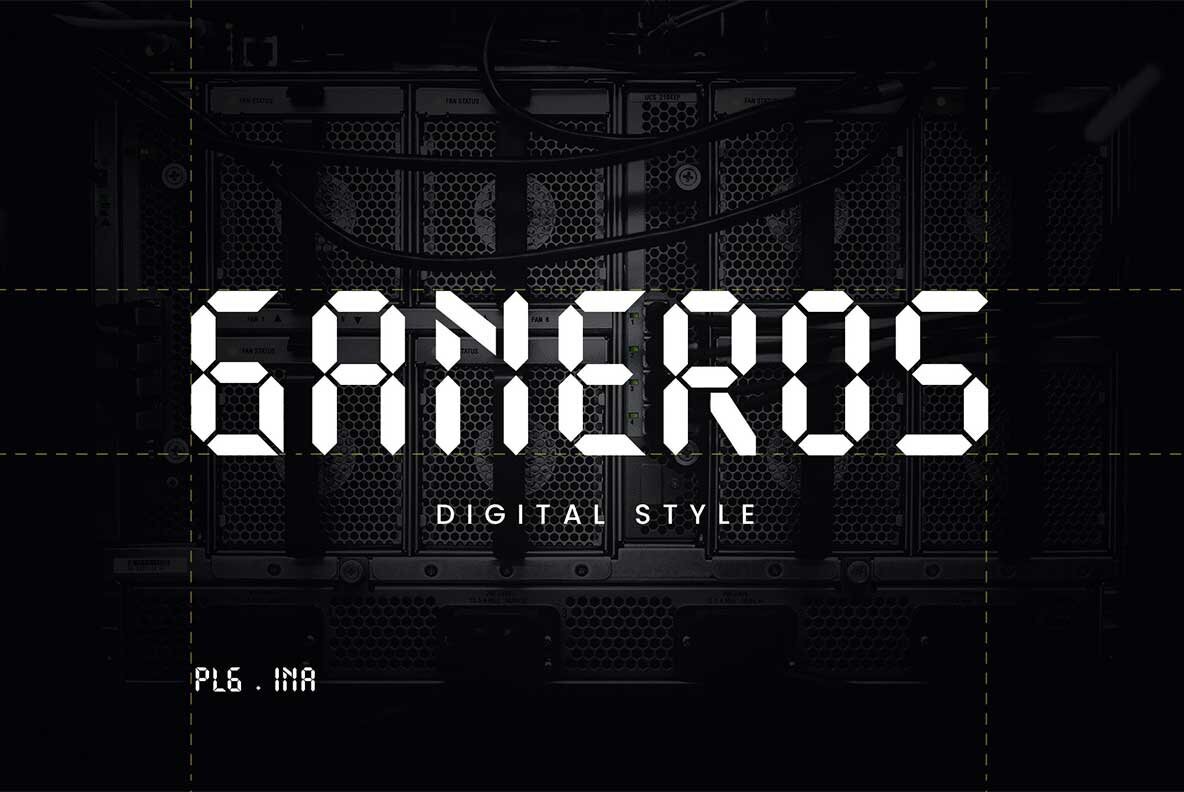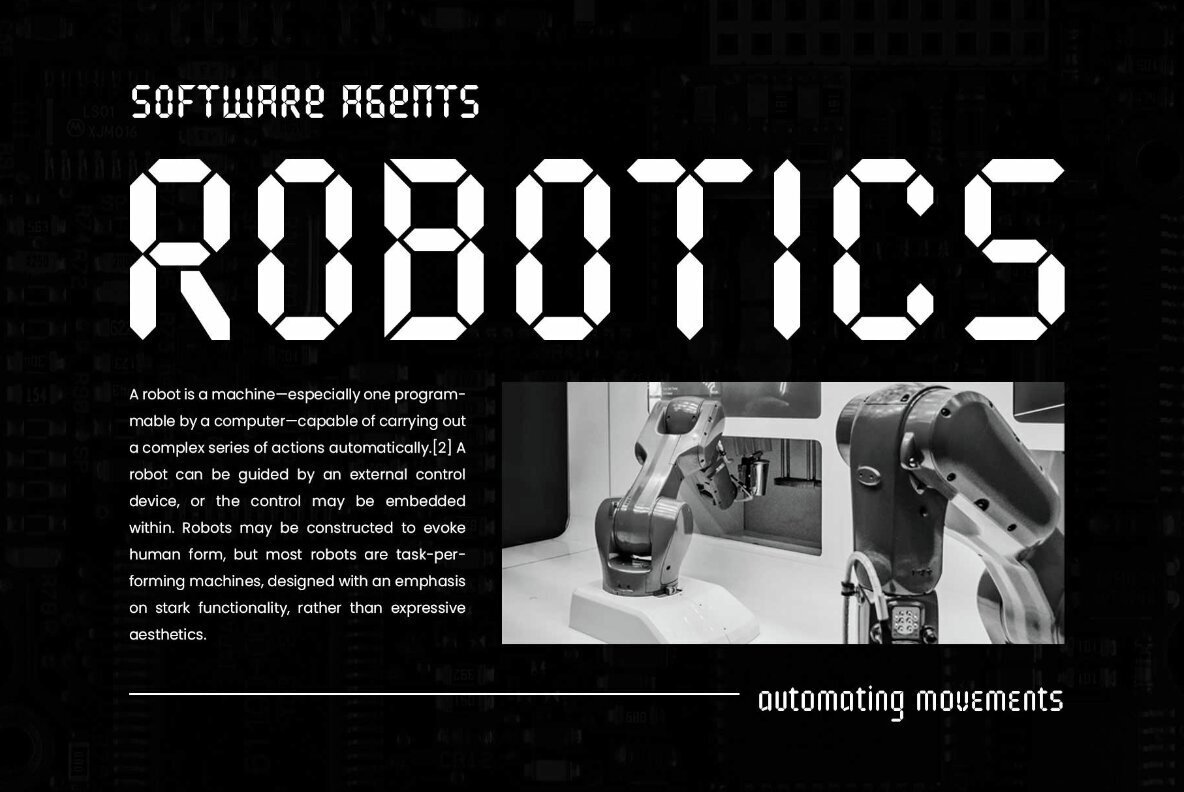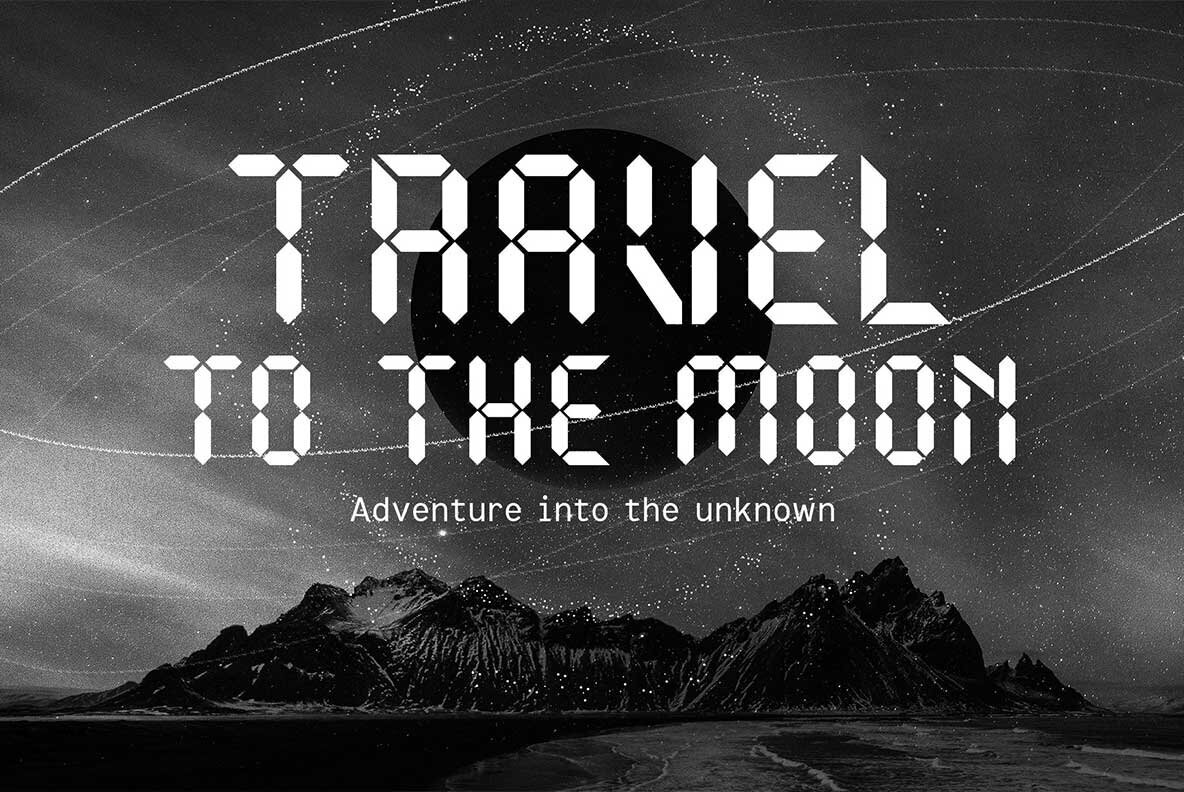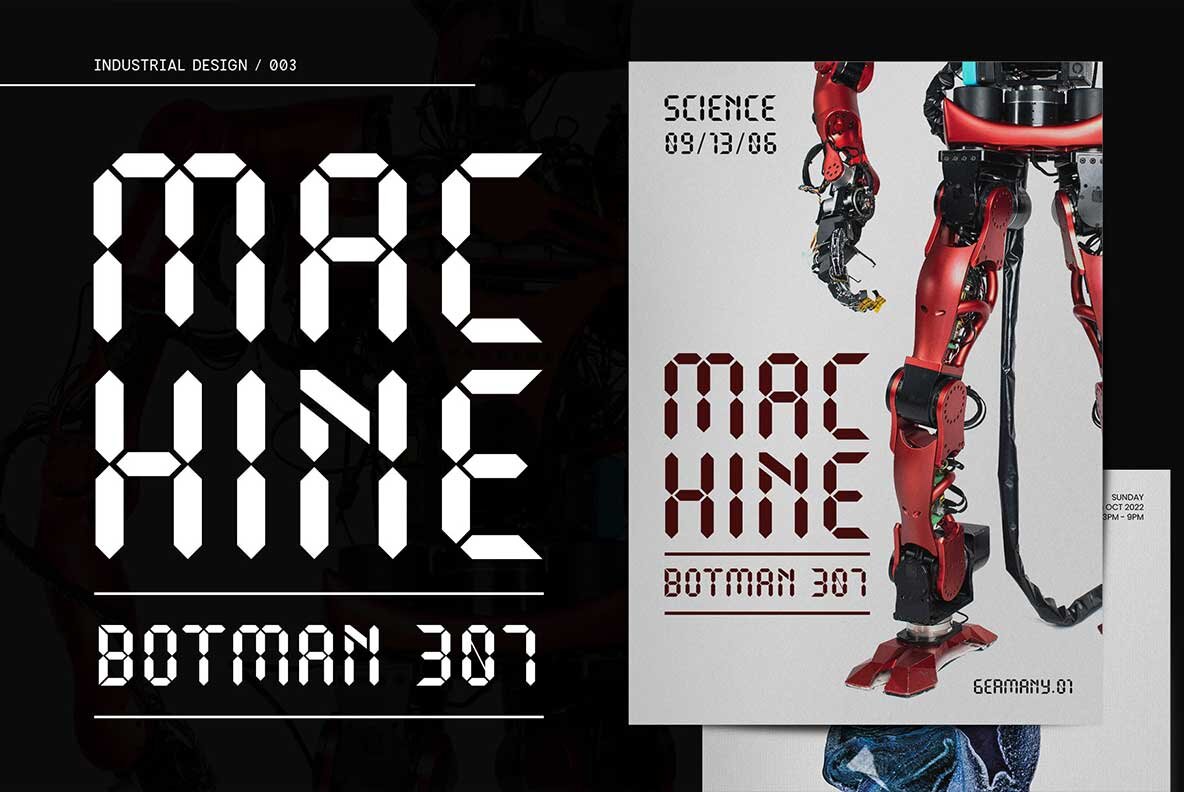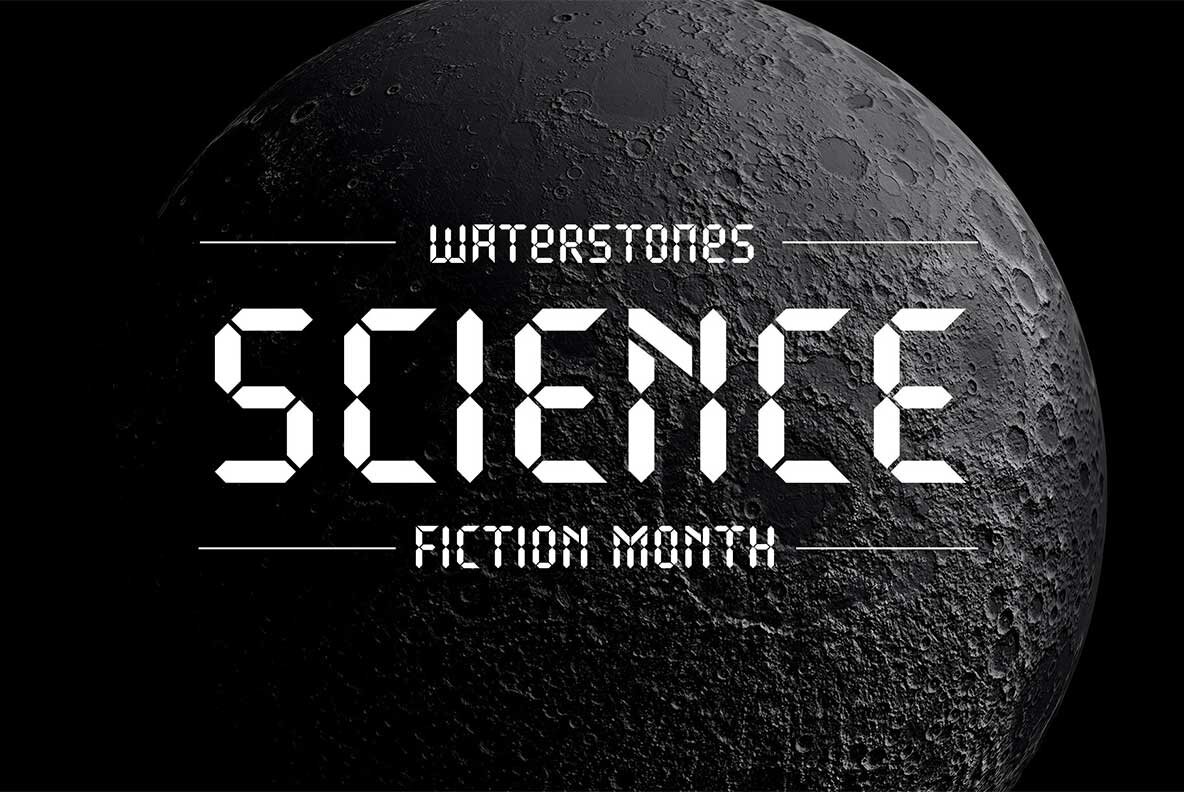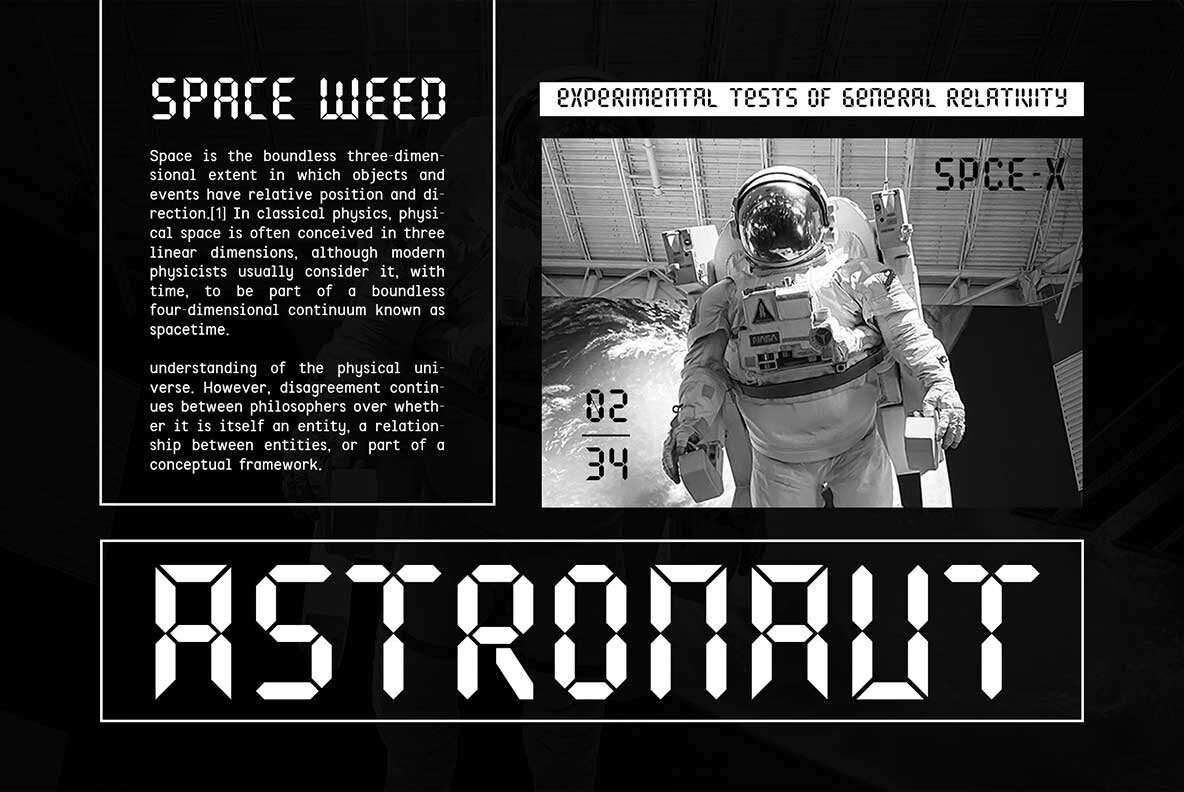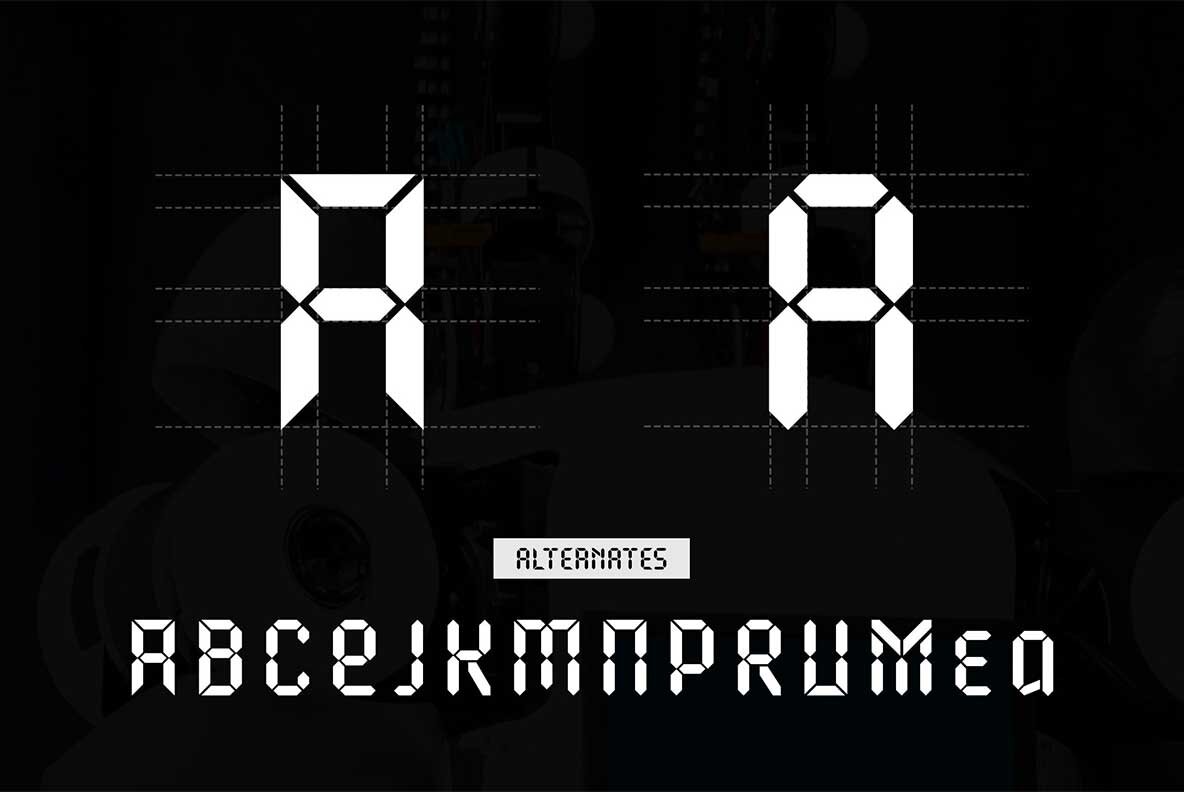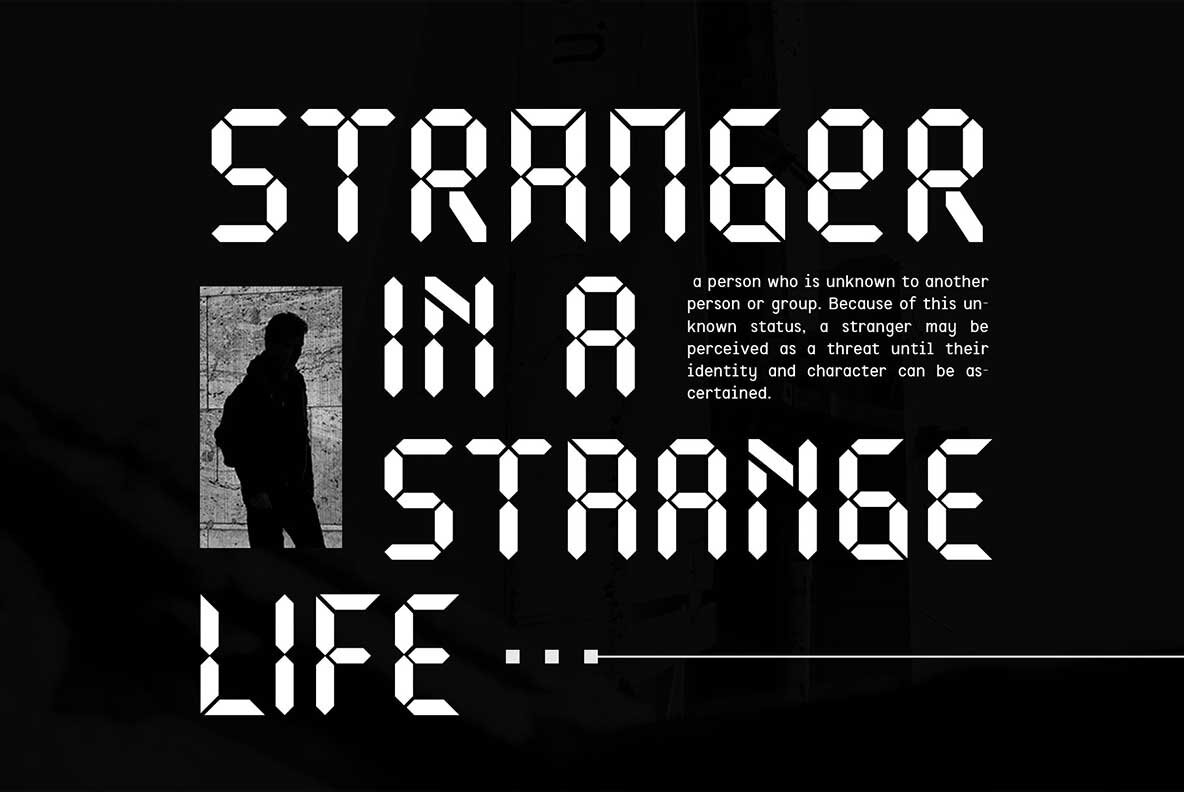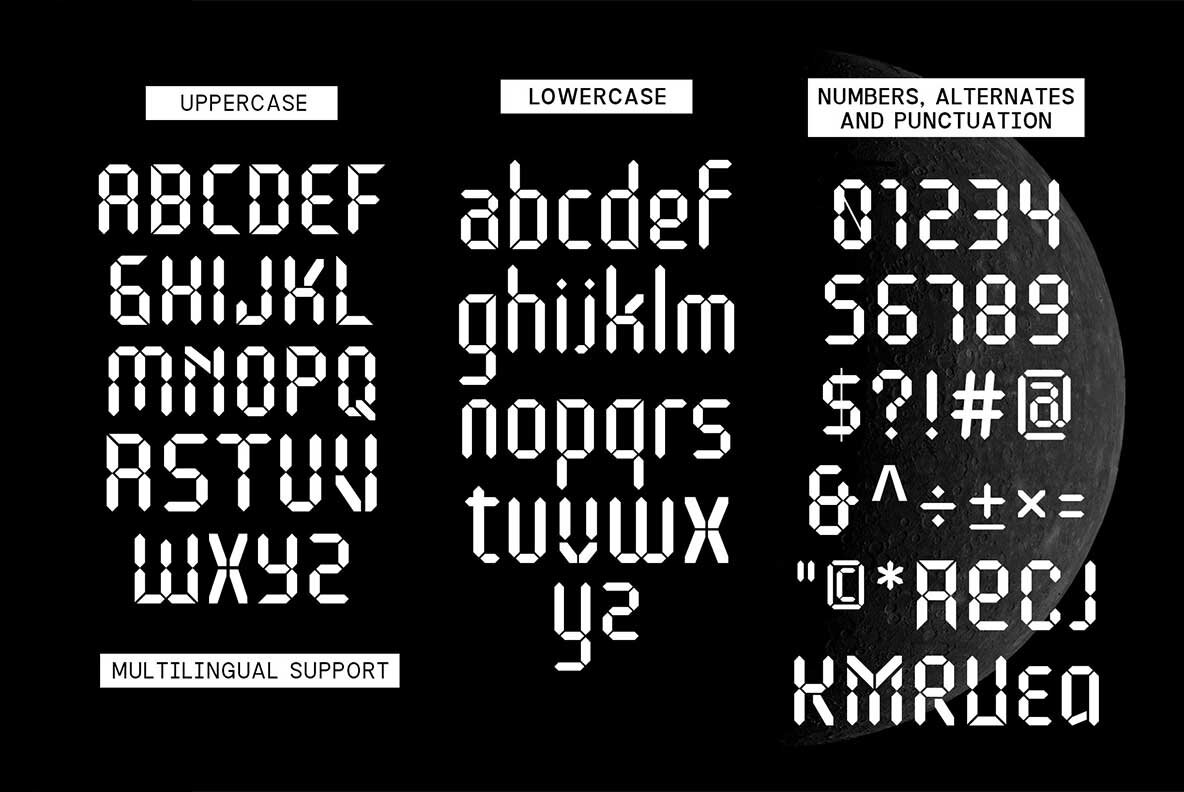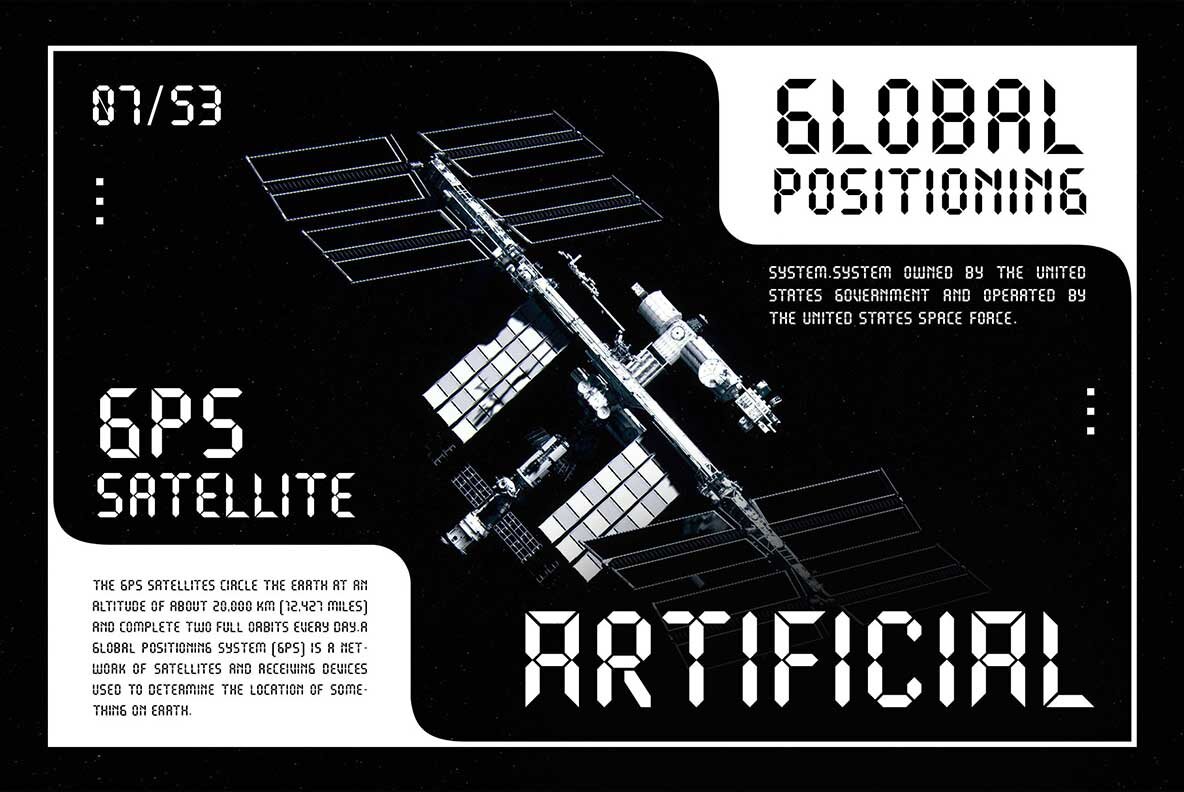
Ganeros Font
Ganeros Regular
Ganeros is a dynamic digital font that blends futuristic style with the strength and vigor needed for bold typographic statements. Ideal for sci-fi themes, space, techno, and sports, this font captures the imagination with its unique design. Its structured yet fluid appearance makes it a perfect choice for those seeking a visually striking typeface.Discover Ganeros